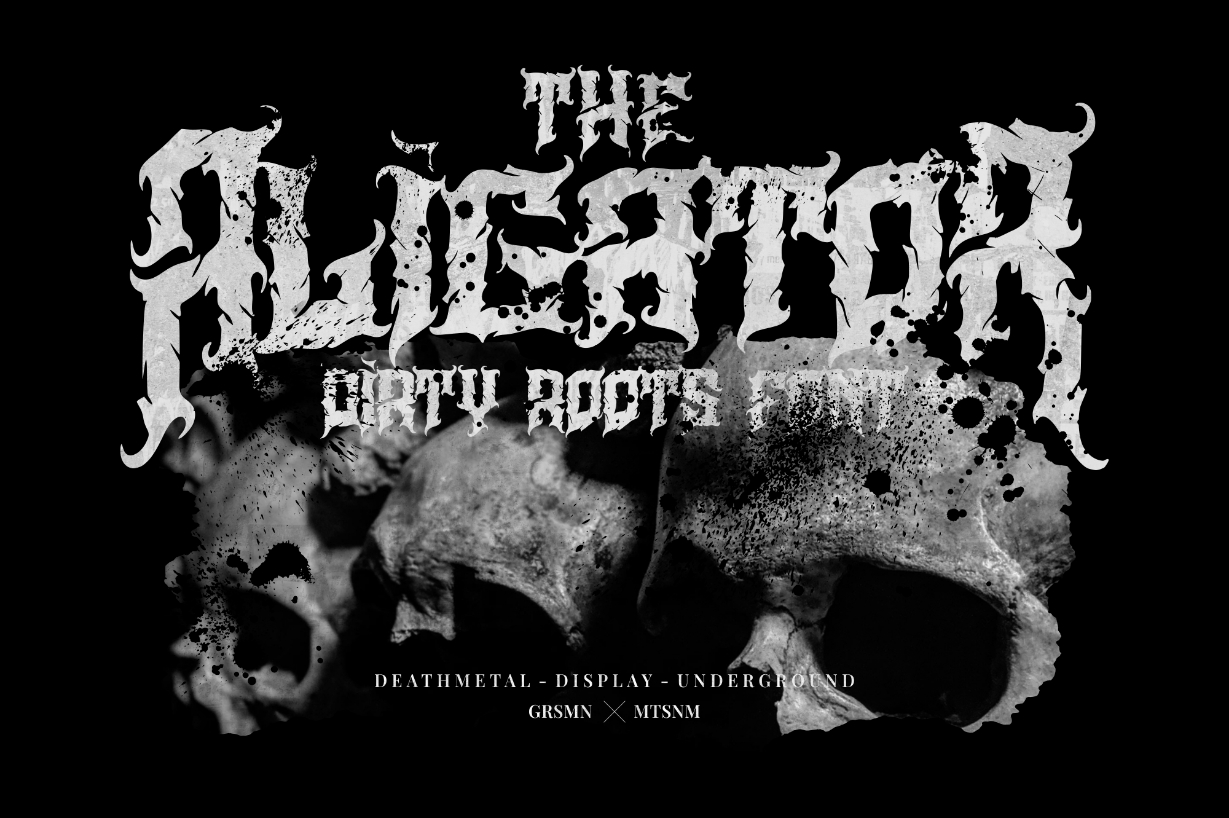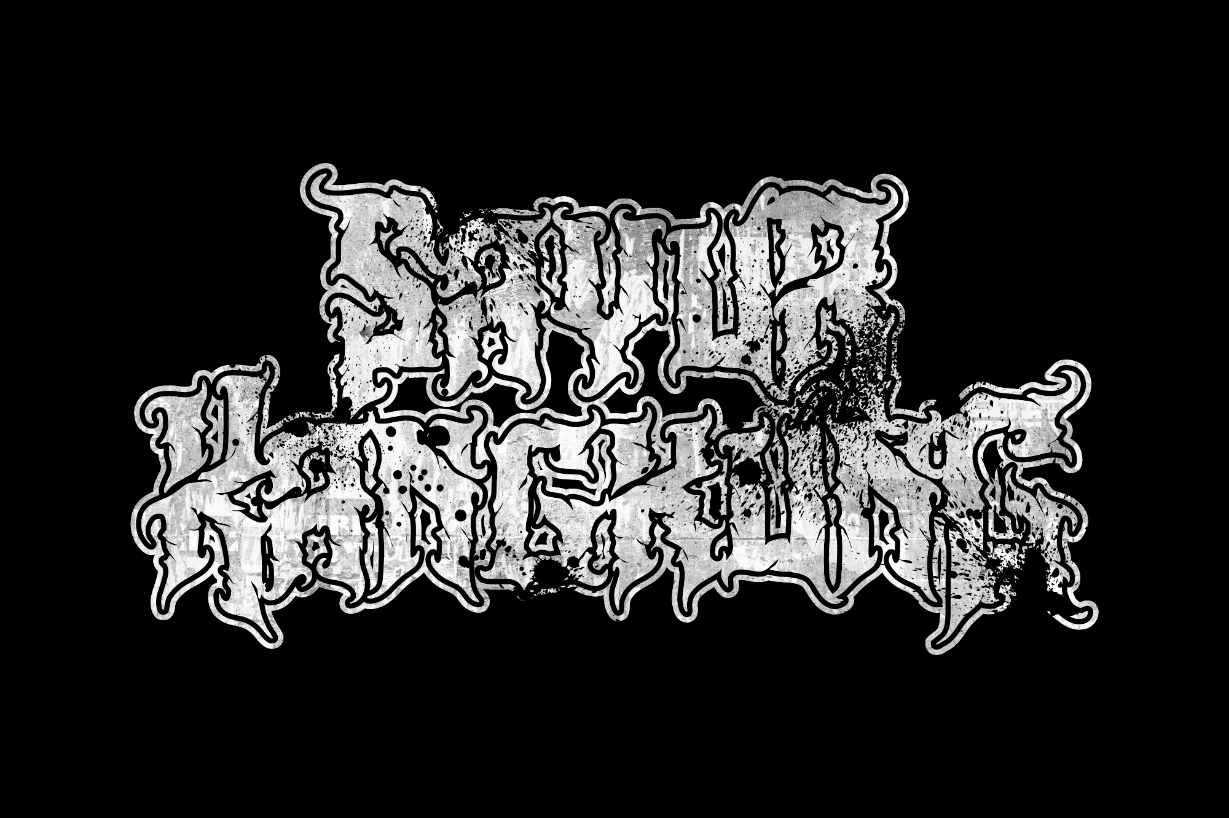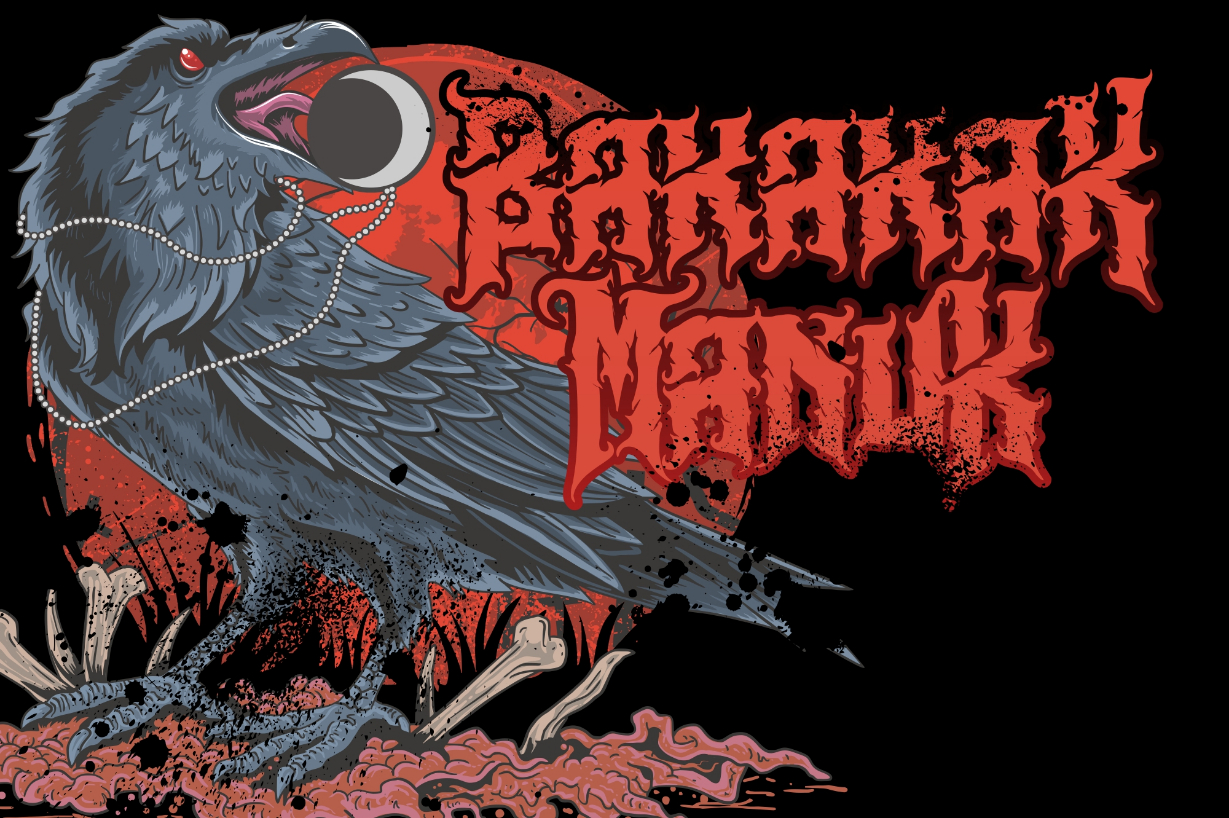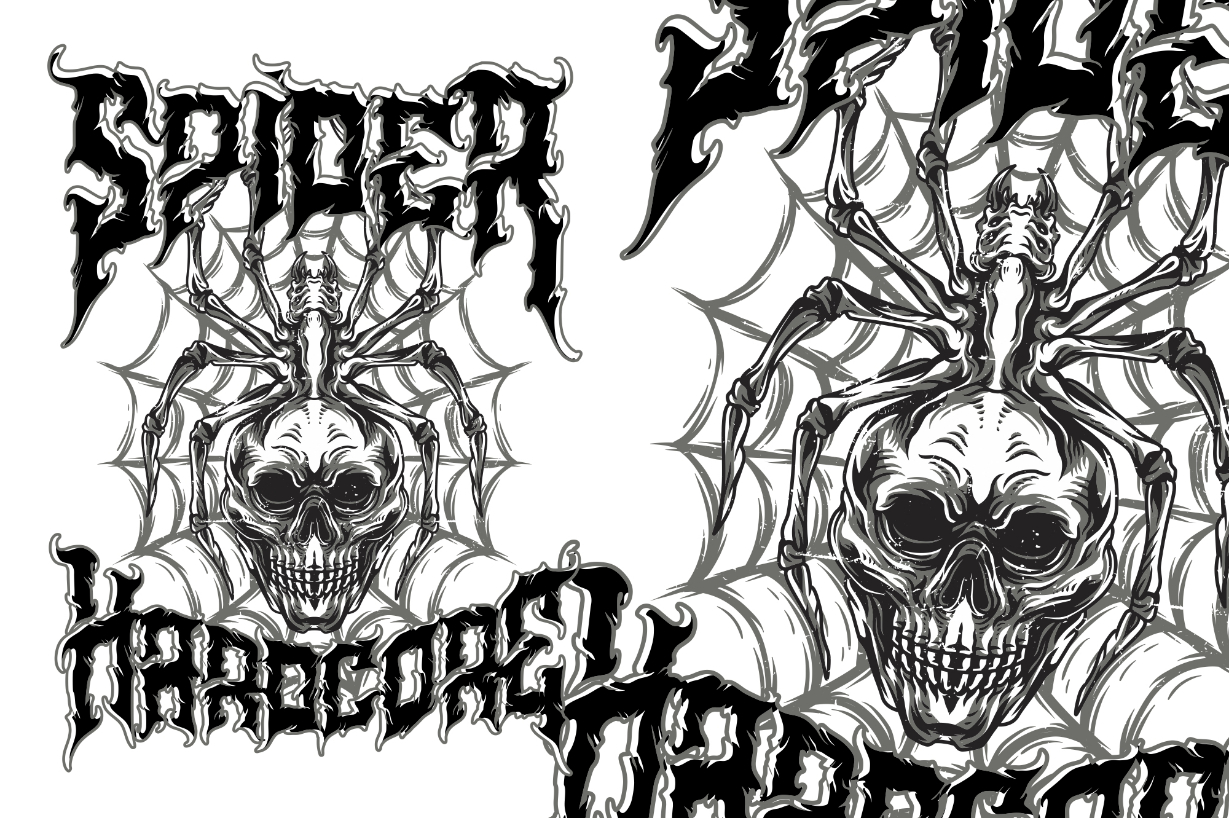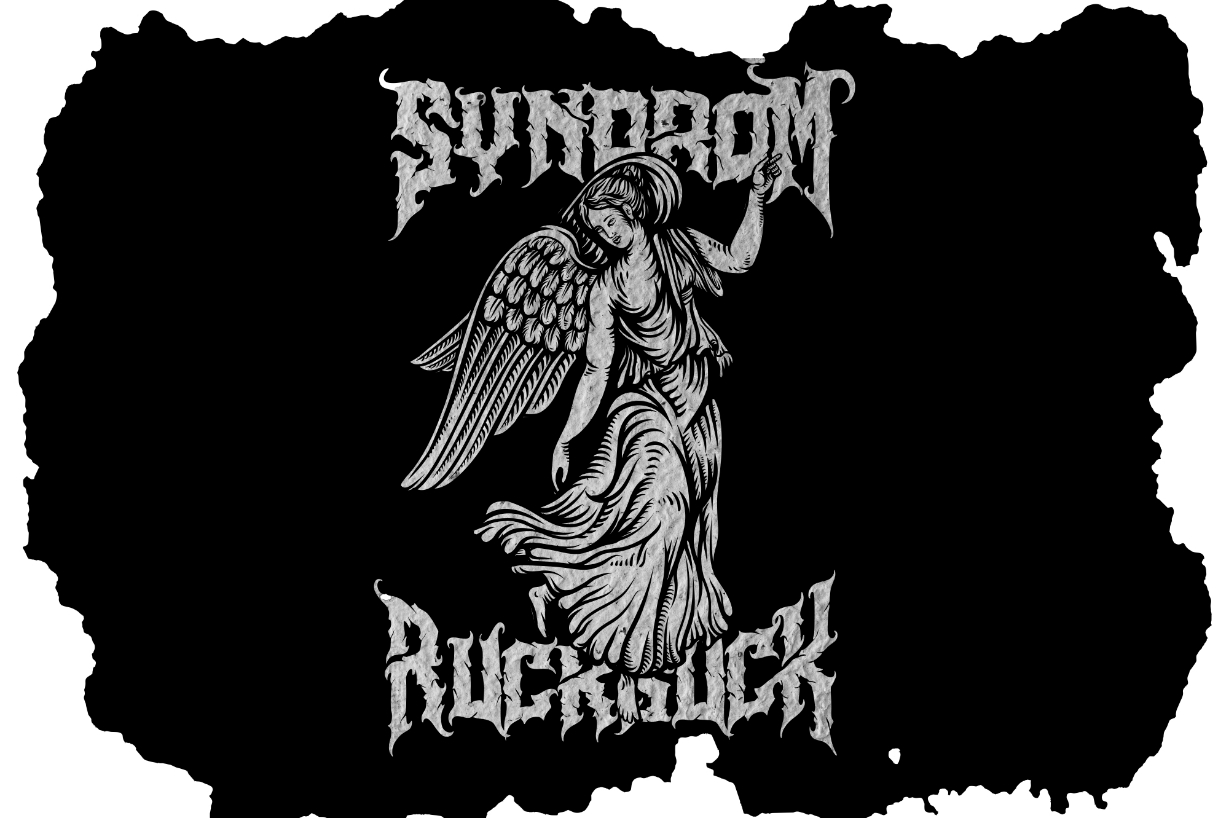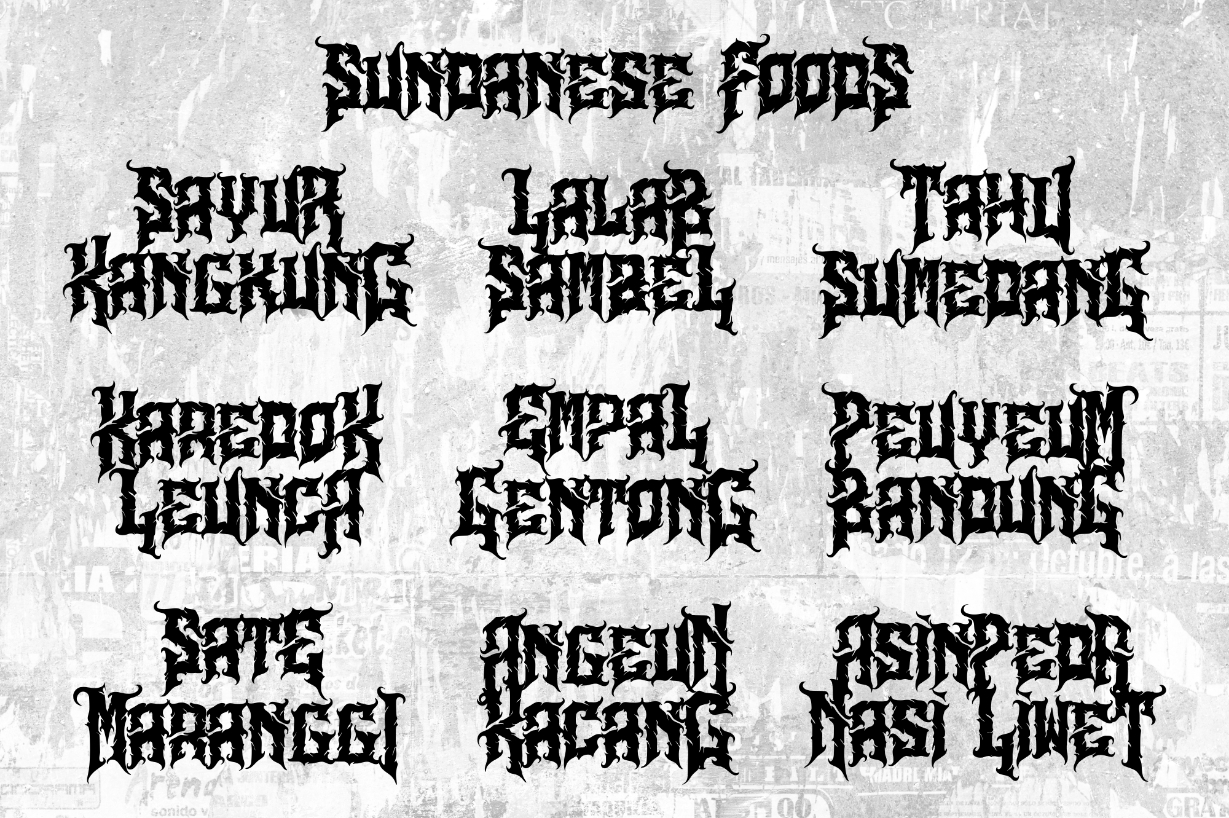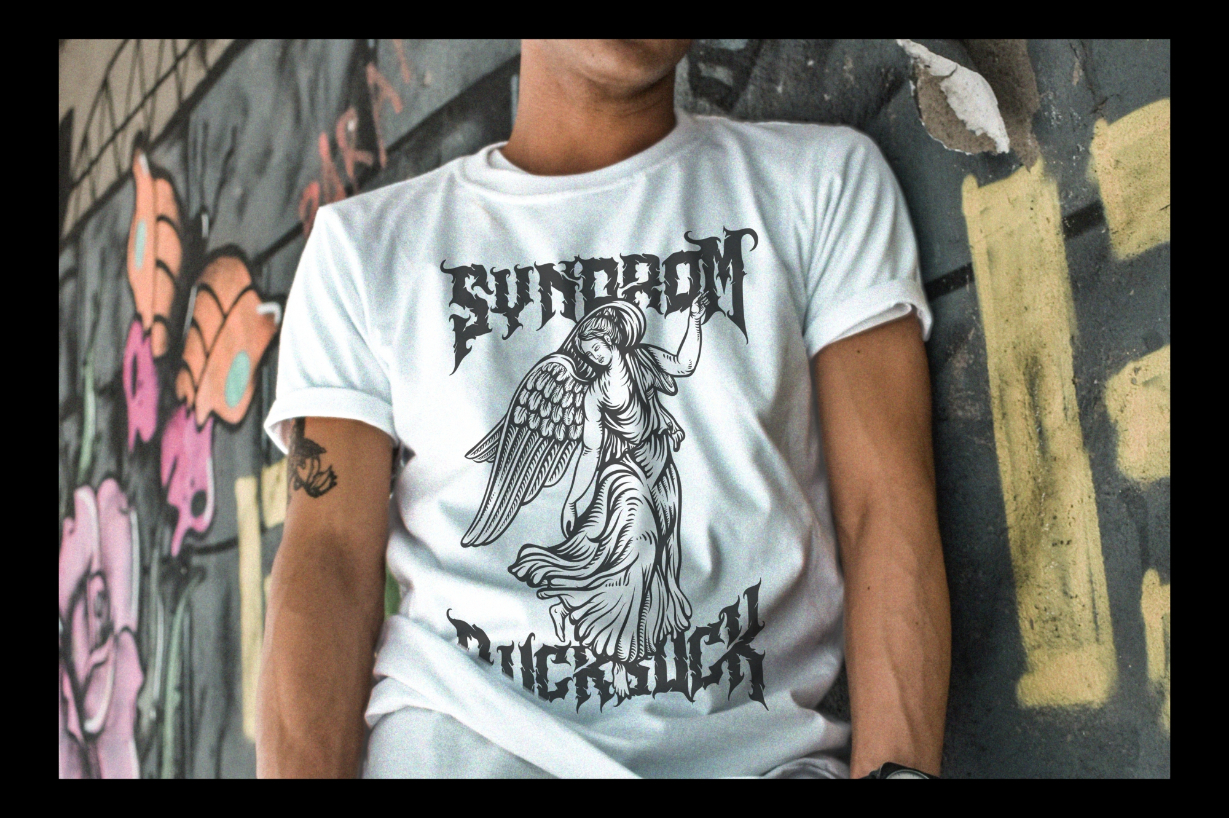
Aligator Font
About Aligator Font
Aligator embodies quirkiness and authenticity. This blackletter font will turn any creative idea into a true standout.